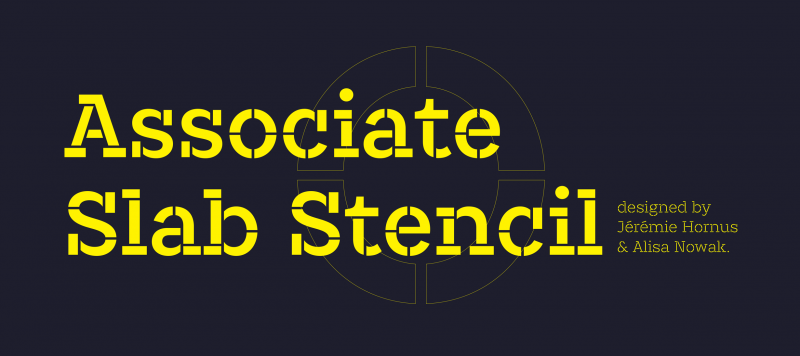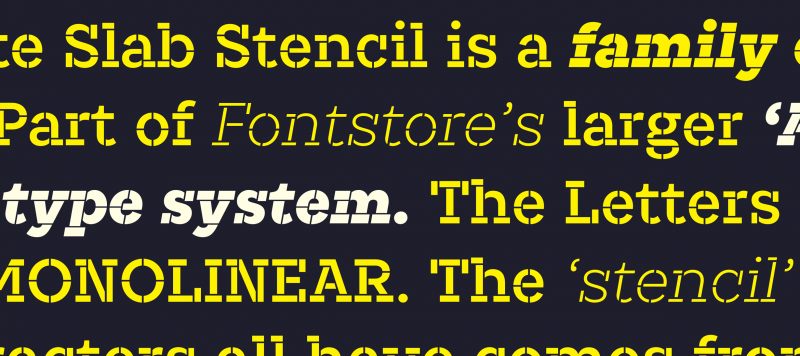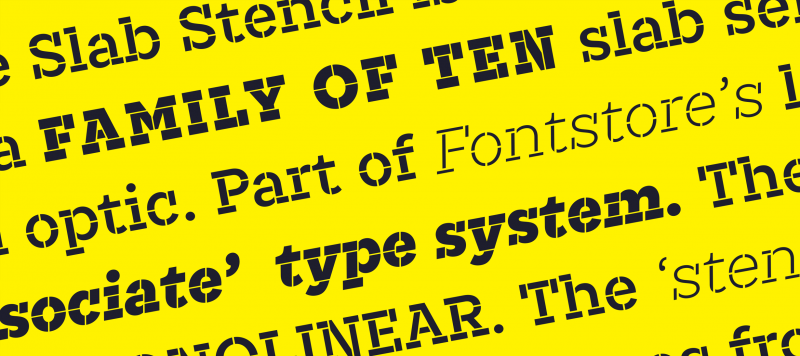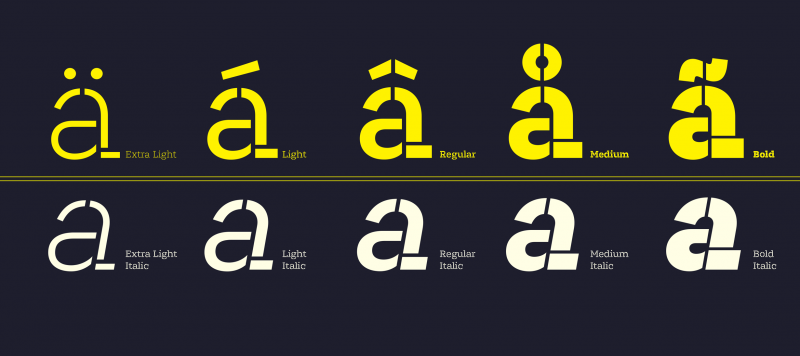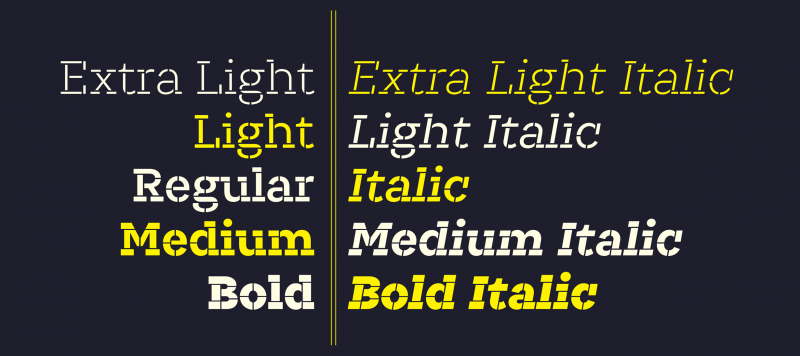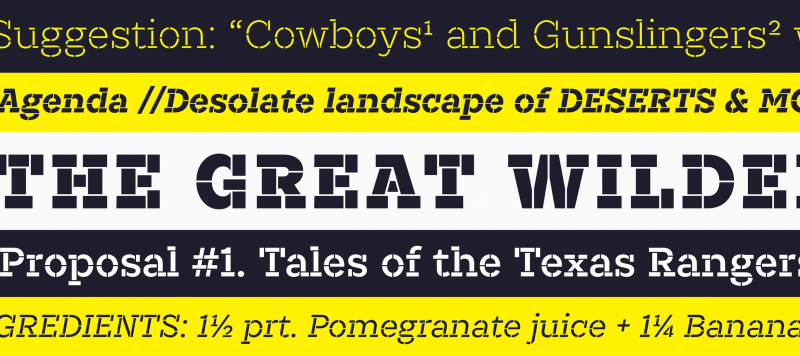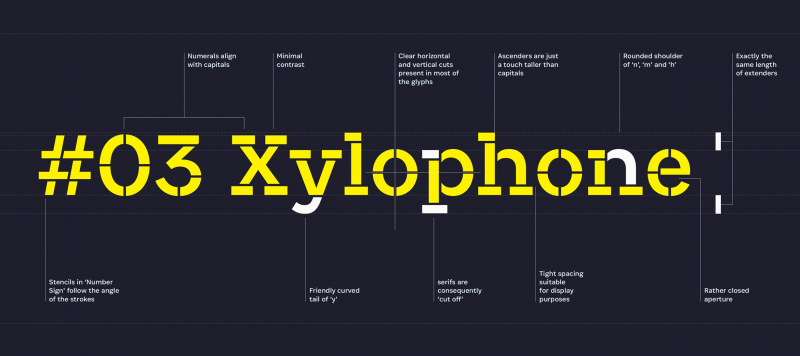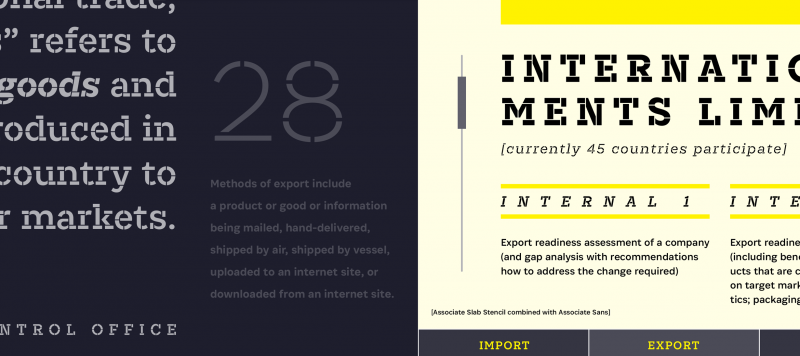
Associate Slab Stencil is a family of ten slab serif fonts with a stencil optic. Part of FontStore’s larger ‘Associate’ type system, Associate Slab Stencil is an extension of the Associate Slab design for use in headlines and logos. The Associate Slab Stencil letters are generally monolinear. The ‘stencil’ optic that the characters all have comes from breaks, or ‘bridges,’ applied to parts of each letter. If you were to create real stencils from these fonts, those would be necessary elements for maintaining each letterform’s stability. Associate Slab Stencil’s bridge-elements are not that wide, however. They do not detract from their underlying characters. Each of the family’s five weights – from ExtraLight through Bold – has a companion italic font available. These italic fonts are ‘obliques;’ they differentiate texts set in them by their slant. On FontStore, you can find all of the other font families from the Associate Type System, too, including Associate Sans, Associate Sans Stencil, and even Associate Sans Mono.
Associate Slab Stencil is designed by Jérémie Hornus and Alisa Nowak.